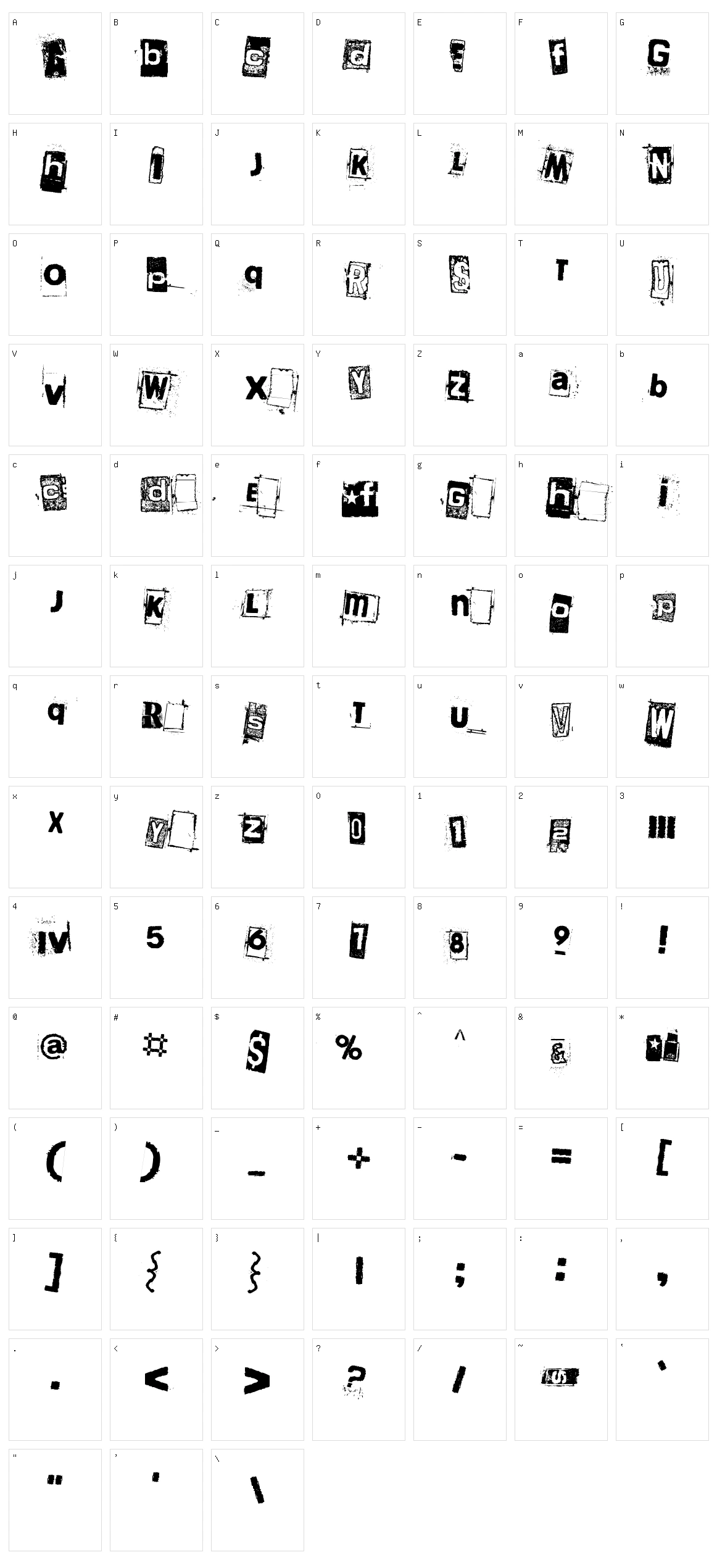
The free font Persona Non Grata is carefully designed by junkohanhero, showcasing a thoughtful balance of creativity and usability and falls under the Distorted font style. When you download the ZIP file, it contains only 314.17 KB of font files, making it lightweight and quick to download. Please review the license details below to understand permitted usage and distribution rights. If license information is not available, we recommend using this font for personal projects only or contacting the author directly for commercial usage permissions.